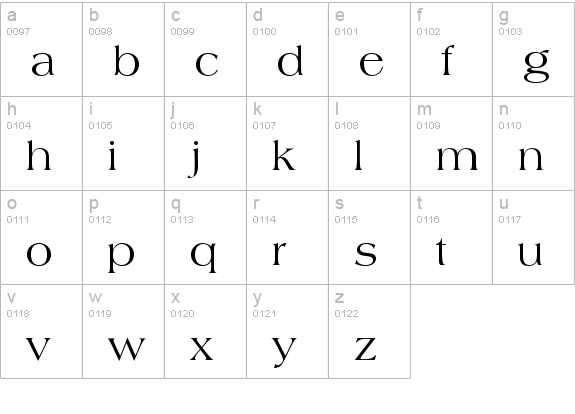
Americana T Regular is the standard, neutral variant in the Americana typeface family \xE2\x80\x94 well suited to general body text, paragraphs, and standard typographic work.
Americana T Regular is a classic and versatile serif font that exudes a timeless elegance. With its clean lines and balanced proportions, this font is perfect for a wide range of design projects, from branding to editorial design. Americana T Regular is easy to read and offers a sense of tradition and reliability. What makes Americana T Regular even more appealing is that it is available for free download at FontsMarket.com. You can easily access this high-quality font to enhance your creative projects without any cost. Whether you're working on a print design, web project, or any other graphic design endeavor, Americana T Regular is a versatile choice that will elevate your work. Download it now and add a touch of sophistication to your designs.